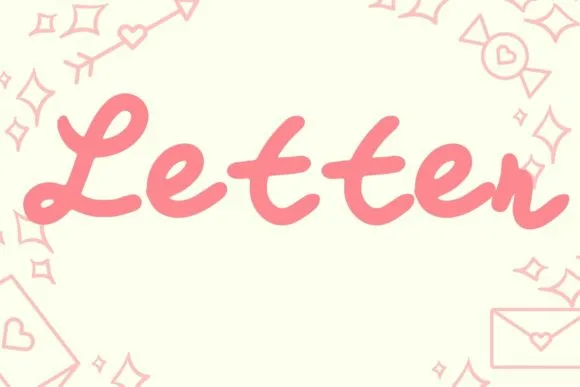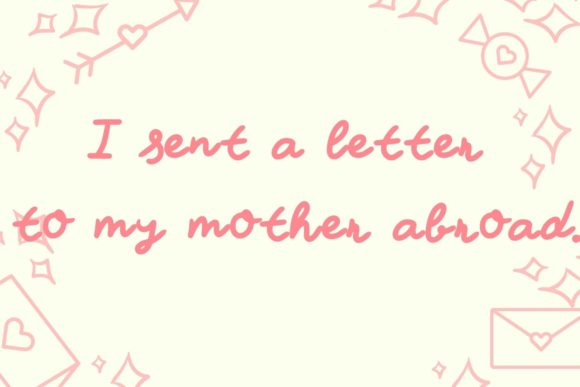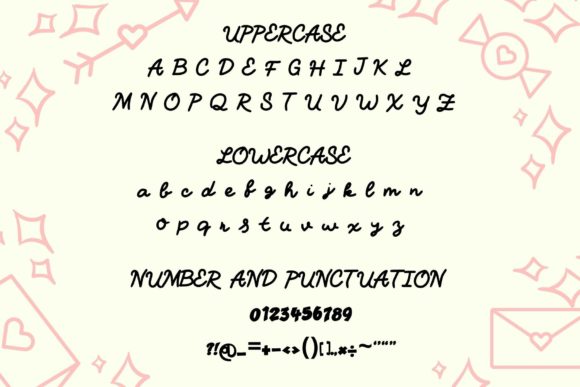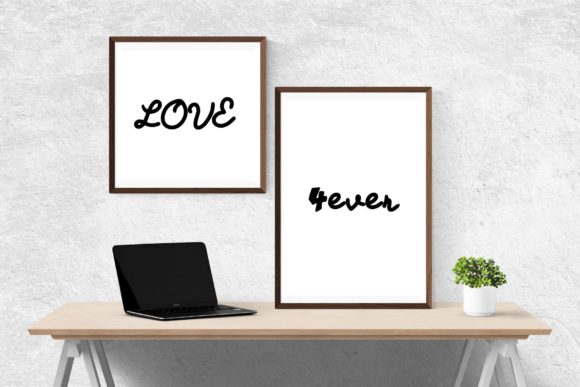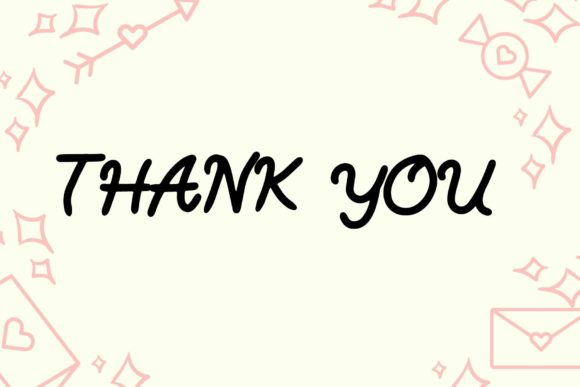
**Letter Font: A Playful Brush Script Unleashing Creativity**
Unveiling the charm of creativity, the “Letter” font emerges as a cute and jolly, paint-brushed script, injecting life and personality into various design realms. With its versatility, this font becomes a spirited choice for logotypes, headline fonts, corporate and brand identities, and an array of creative projects.
The strokes of the “Letter” font exude a playful and jolly vibe, reminiscent of a paintbrush dancing on a canvas. This characteristic makes it a standout choice for industries ranging from apparel, posters, music, movies, and games to magazines, books, comics, cartoons, YouTube, Instagram, and websites.
In the corporate and brand identity sphere, “Letter” offers a unique twist, infusing a sense of fun and approachability. Its ability to strike a balance between whimsy and professionalism makes it a dynamic asset for businesses aiming to convey a lively and engaging image.
For poster designs, the “Letter” font can transform static content into vibrant visual experiences. Its expressive nature adds flair to promotional materials for music, movies, and games, capturing the essence of the content it represents.
In the digital landscape, whether it’s YouTube, Instagram, or websites, “Letter” injects a dose of energy into visuals. It becomes a reliable companion for content creators, helping them convey their message with a touch of charm and a dash of creativity.
The adaptability of “Letter” is evident in its ability to seamlessly integrate into diverse design projects. From the pages of magazines to the panels of comics, it adds a layer of character that captivates the audience.
Imagine the “Letter” font as the artist’s brush, ready to paint a vivid and lively picture across a spectrum of creative endeavors. It’s not just a font; it’s an invitation to infuse joy and playfulness into designs, transforming them into delightful and memorable expressions of creativity.
So, whether you’re crafting a brand identity, designing a poster, or embarking on a digital storytelling journey, let “Letter” be your creative ally, bringing a cute and jolly spirit to every stroke and curve.